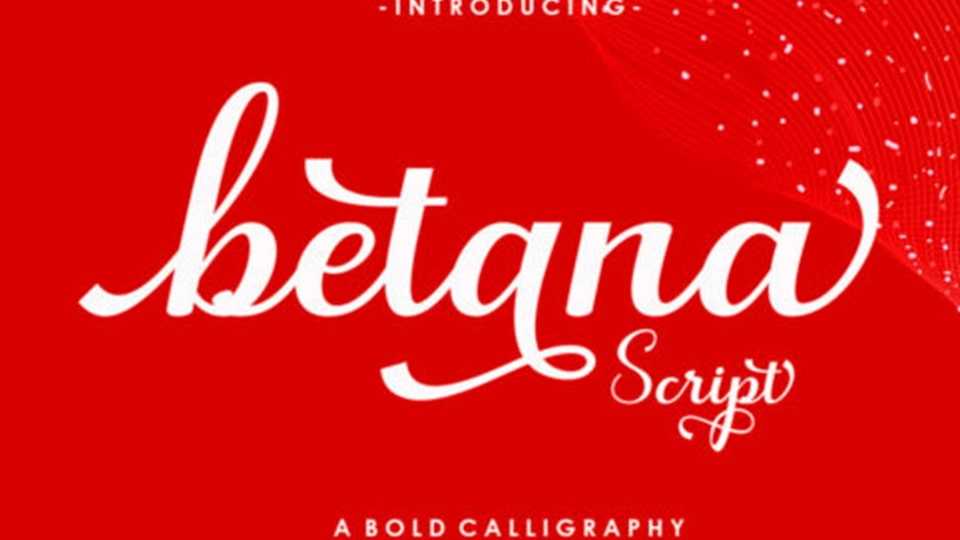
Download Betana Script font, a lovely typeface featuring charming, playful characters. Add it to your most creative ideas, and notice how it makes them stand out!